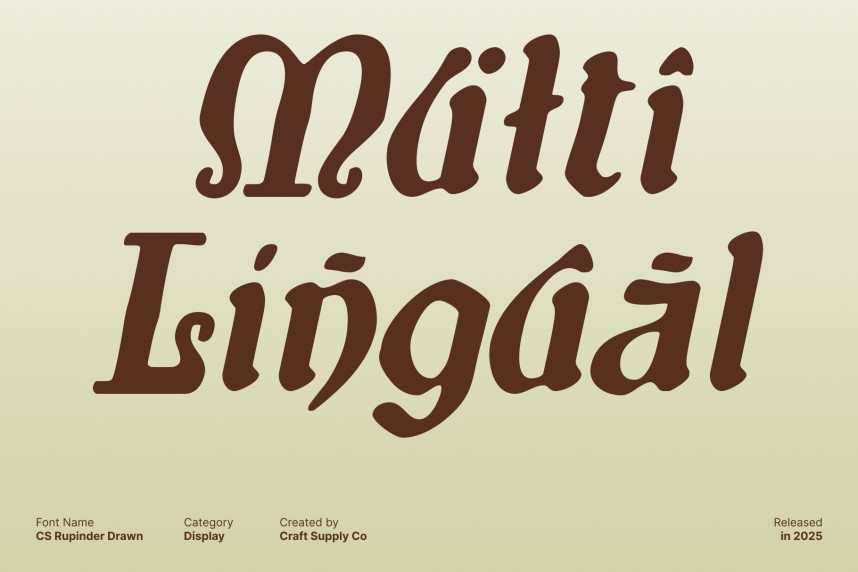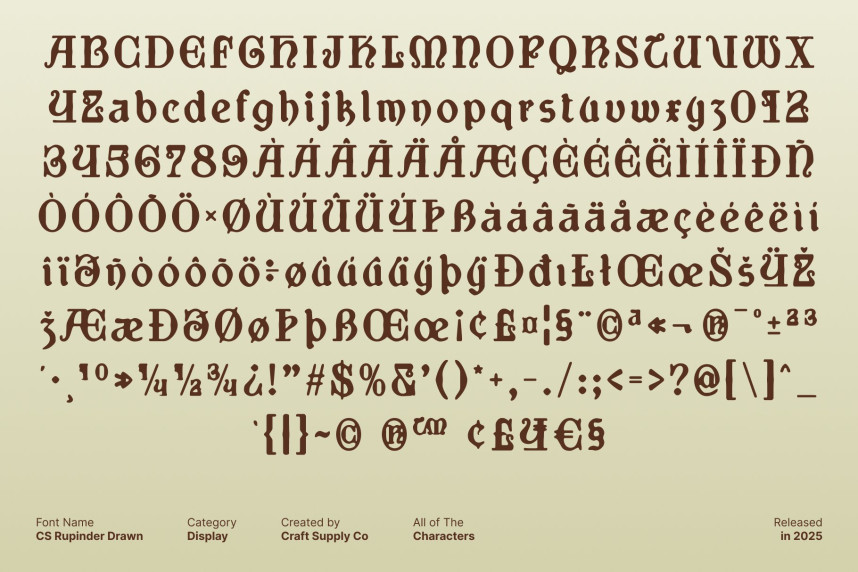
CS Rupinder Drawn Font
CS Rupinder Drawn Font – Gothic Uncial Display Font with Handcrafted Expression Sharp, Decorative Letterforms with Historical Character. This is a gothic display font that merges classic uncial decorative forms with bold, expressive shapes. Its sharp angles and ornate detailing convey a sense of drama and sophistication, making it perfect for projects that require a striking, historically inspired typographic presence.